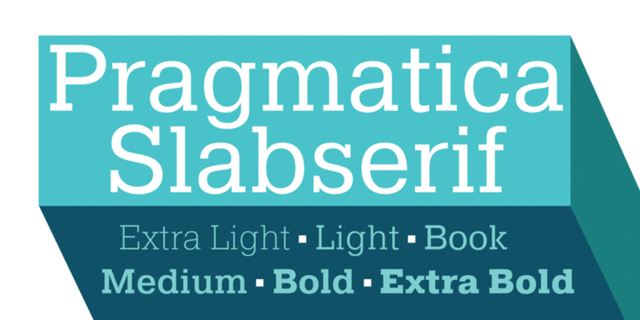
Pragmatica Slabserif (6)
About Pragmatica Slabserif was designed as a complement to the popular Pragmatica type family by Vladimir Yefimov and Isabella Chaeva (1989-2004) by addition of square serifs. The first sketches of Pragmatica Slabserif were created by Vladimir Yefimov in 1988 during the development of Pragmatica. Olga Umpeleva designed the whole slabserif type family of six weights basing on these sketches. All the styles of Pragmatica Slabserif match the corresponding Pragmatica styles in metrics, proportions, weights and design. The two families may be used combined and separately. Pragmatica Slabserif is convenient for technical texts, for magazines of general nature, for business applications as well as for advertising and display settings. Pragmatica Slabserif was released by ParaType in 2011.
Features of font family Pragmatica SlabserifThe hit of the decade:
Associations for font family Pragmatica SlabserifTypeface personality and character:
accurate, easy, cold, fashionable, business, stable, static, flat, wire, thin, solid, serious, clever, rectangular, iron, steel, reliable, self-assured, strong, industrial, technogenic, convincing, motivating, responsible, authoritative, formidable, military, army, loud, ambitious, workman, powerful, heavy, severe, tough
architecture, constructor, design, clock, equipment, device, science, technology, medicine, industry, machine tool, tool, policy, finance, power, economy, repairs, pharmacy, Lockdown, money, Mechanics, mechanical engineering, army, security, protection, airsoft, police, construction, building, footwear, brick, truck, trucker, steel-maker, football, sport, workman, selfie, fitness equipment Typeface associated with age: